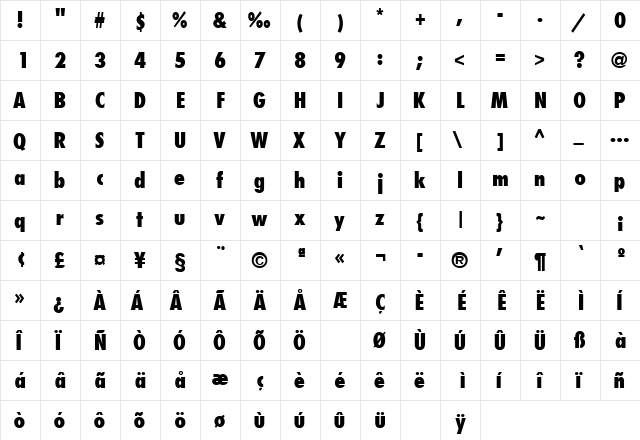
KudosCondSSK Bold Font Preview
KudosCondSSK Bold
Design Context for KudosCondSSK Typeface
KudosCondSSK is a composed and adaptable typeface that performs quietly and consistently across a wide range of design contexts. Its bold stroke weight gives it real presence on the page. The condensed width makes it efficient for tight spaces without sacrificing legibility.